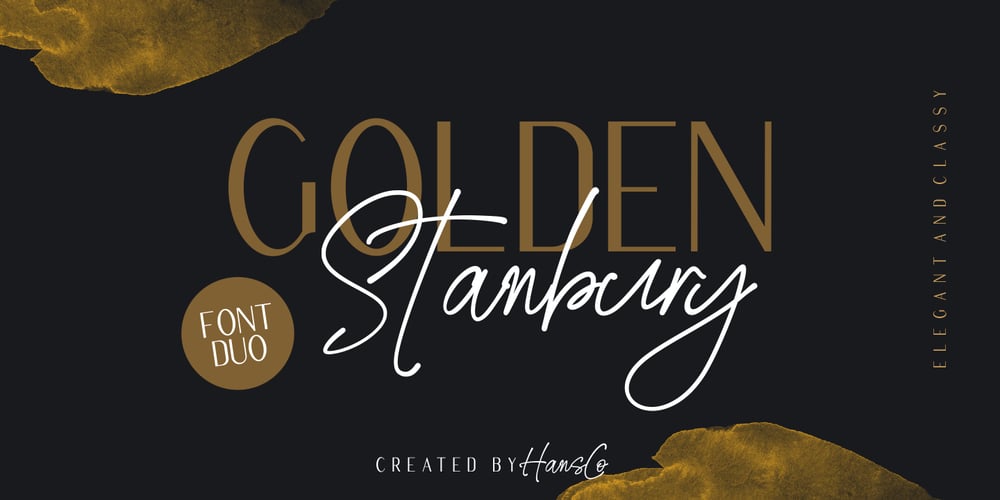
Golden Stanbury Font Family was designed by Burhan Afif and published by HansCo. Golden Stanbury contains 2 styles and family package options. Golden Stanbury is an elegant and classy font duo with a modern touch. The signature ballpoint style gives you a sleek, elegant look for your logos, business card, wedding invitations, quotes, advertisements, and more. I made this Golden Stanbury Font Duo for the needs of the logo and branding market where fonts that are combined with modern and clean concepts are still very rare and hard to find. Hopefully Golden Standbury can provide choices for designers.Highly recommended to use it in OpenType capable software – there are plenty out there nowadays as technology catches up with design. The OpenType features can be accessed by using programs such as Adobe Illustrator, Adobe InDesign, Adobe Photoshop Corel Draw X version, Afinity and more. Let’s create something beautiful today with Golden Stanbury.Enjoy!